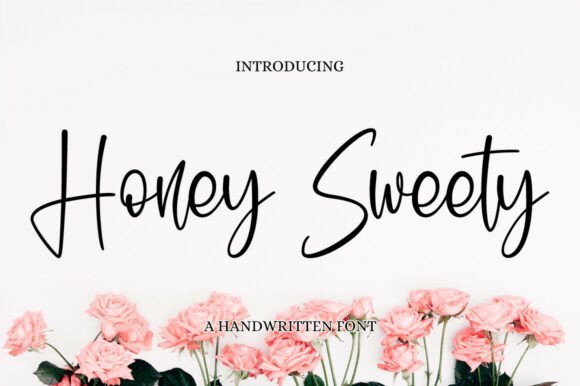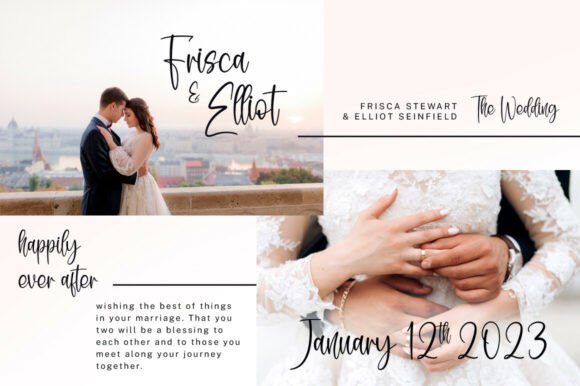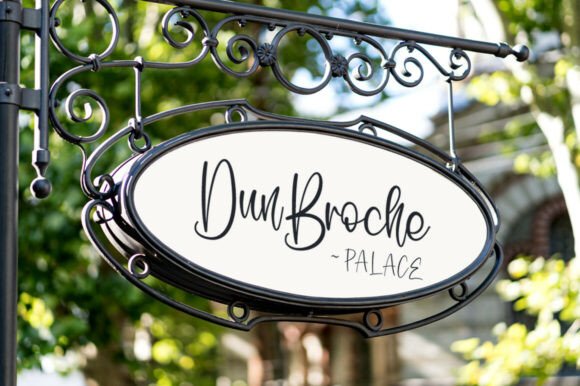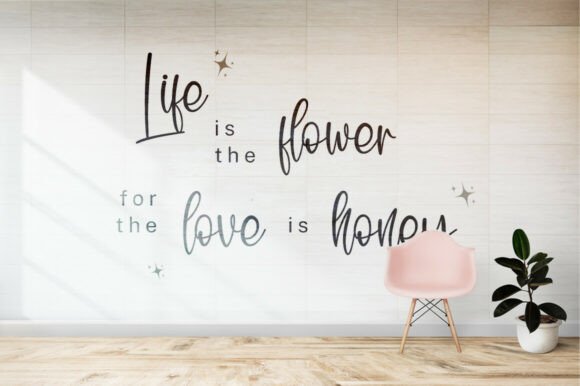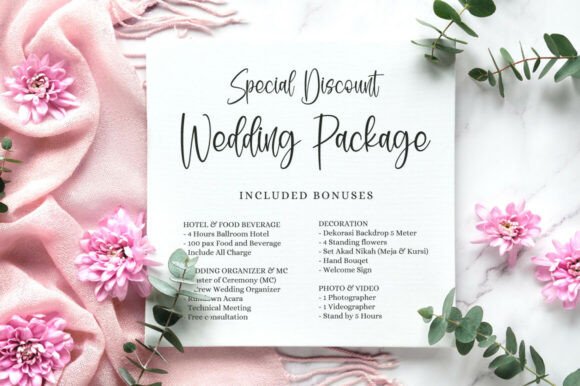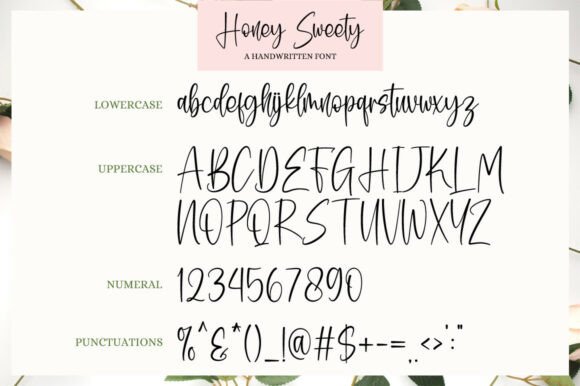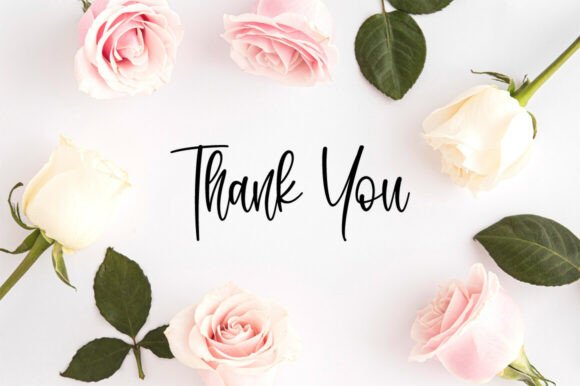
When Words Become Works of Art: The Magic of the Honey Sweety Font
Have you ever sat down to craft a special message for someone you love, only to find that the right words just aren’t enough? The words you write are heartfelt, but they feel a little flat, a little ordinary. That’s when the perfect font can make all the difference. Enter the Honey Sweety Font, a beautifully flowing script font that captures the essence of romance, elegance, and heartfelt expression.
This gorgeous font is more than just a design element – it’s a way to elevate your words and make them truly special. With its delicate curves and naturally handwritten style, the Honey Sweety Font brings a personal, human touch to every design it graces. Whether you’re a designer looking for the perfect font to match your client’s vision, or simply someone who wants to make a lasting impression, the Honey Sweety Font is an invaluable tool in your creative arsenal.
Honey Sweety Font Key Features
- Font Styles: Honey Sweety Font comes in 2 font styles: Regular and Bold, to cater to various design needs.
- Character Set: The font includes a comprehensive set of characters, including uppercase and lowercase letters, numbers, punctuation marks, and special characters.
- Unique Characteristics: Honey Sweety Font features a playful, cursive script with a touch of whimsy, making it perfect for creative projects, such as invitations, greeting cards, and children’s books.
Honey Sweety Font Review
Overall, I was a bit torn when I first started working with the Honey Sweety Font. On one hand, it has some unique qualities that caught my attention. ✨ I love the playful, cursive feel it brings to text. It’s perfect for designs that need a touch of whimsy and romance. The font also has a wide range of weights, from light to bold, making it versatile for various applications.
However, there are a few limitations that I think are worth mentioning. ⚠️ Firstly, the font can be quite difficult to read, especially at smaller sizes. This might make it challenging to use for body text or any content that requires clear readability. Additionally, the font’s style can come across as a bit too childish or overly sweet, which might not be suitable for all designs.
- Cursive, playful feel
- Wide range of weights (light to bold)
- Perfect for designs needing a touch of whimsy and romance
- Can be difficult to read at smaller sizes
- Style may come across as too childish or sweet
Overall, I think the Honey Sweety Font is a great choice for designs that need a touch of personality and flair. However, it’s essential to be mindful of its limitations and use it thoughtfully in your projects.
Getting the Most Out of Honey Sweety Font
For best results, use Honey Sweety Font in combination with bold or italic styles to add emphasis and visual interest.
Experiment with different font sizes and colors to create a cohesive and eye-catching design.
Honey Sweety Font is ideal for use in:
1. Social media graphics and advertisements.
2. Wedding invitations and party decorations.
3. Fashion and beauty branding materials.
4. Any design project where a playful and whimsical font is needed.
Alternatives to Honey Sweety Font
Great Vibes is a beautiful, handwritten font that is perfect for creating a sense of warmth and friendliness in your designs. It is ideal for use in logos, social media graphics, and other creative projects where a touch of personality is needed.
Compared to Honey Sweety Font, Great Vibes has a more subtle and elegant feel, making it suitable for a wider range of design applications.
Q: What is the recommended font size for using the Honey Sweety Font?
The recommended font size for using the Honey Sweety Font is between 12pt and 24pt. This will ensure that the font is legible and visually appealing in most applications and print materials.